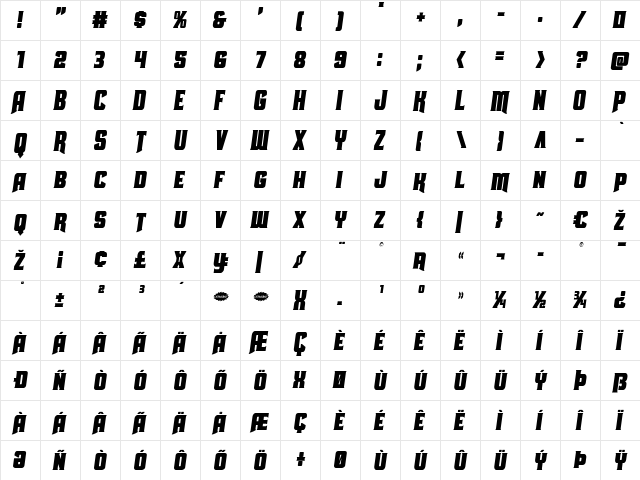
Union Gray Condensed Semi-Italic Condensed Semi-Italic
Design Context for Union Gray Condensed Semi-Italic Typeface
Union Gray Condensed Semi-Italic is a composed and adaptable typeface that performs quietly and consistently across a wide range of design contexts. Its italic angle brings a sense of urgency and motion to the letterforms. Its narrow stance lets it pack a punch even in space-constrained designs.
Pro Tip: Use Union Gray Condensed Semi-Italic for emphasis, pull quotes, and subheadings where its slanted energy can add rhythm to the layout.